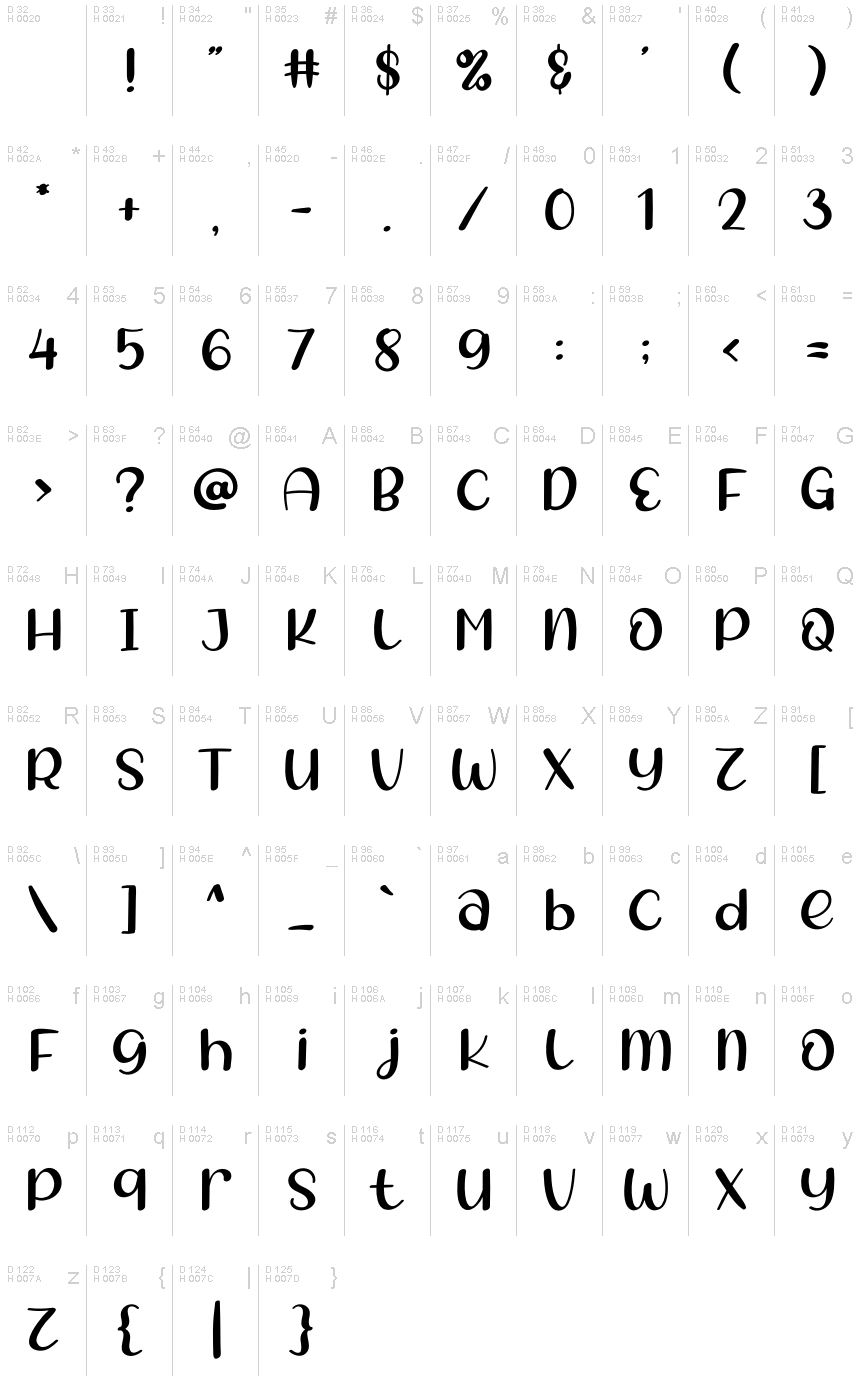
Salmonpie
Salmonpie font, designed by Luluk Surotul, is a playful and elegant handwritten display typeface that exudes charm. Its quirky letters dance across the page, providing a sense of whimsy that effortlessly draws the eye. The unique swirls and loops create a lively rhythm, making it ideal for projects that aim to capture attention.
This font’s expressive style pairs beautifully with various design themes, making it suitable for invitations, branding materials, and social media graphics. Whether you’re crafting a memorable logo or enhancing visual content, Salmonpie adds a distinctive touch that elevates creativity. Embrace its character and watch your ideas shine!